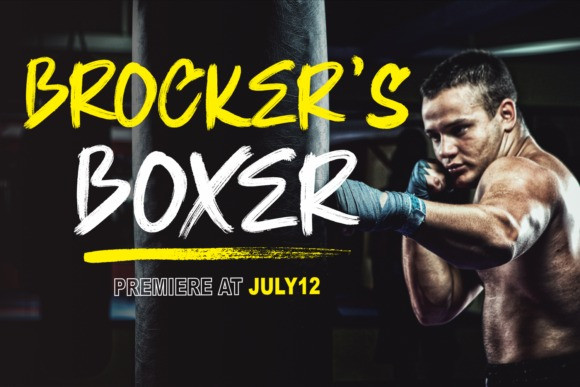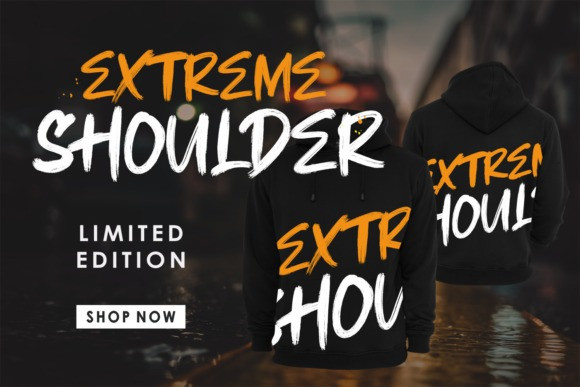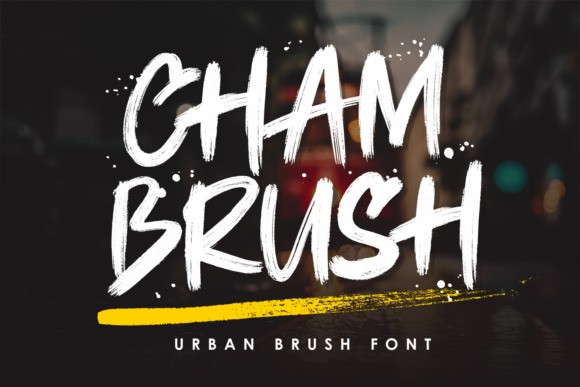
Chambrush Font
Chambrush Font is a casual, fun display font, created by using a brush pen. This font is the perfect fit for all of your logos, branding, social media, and crafty DIY projects.